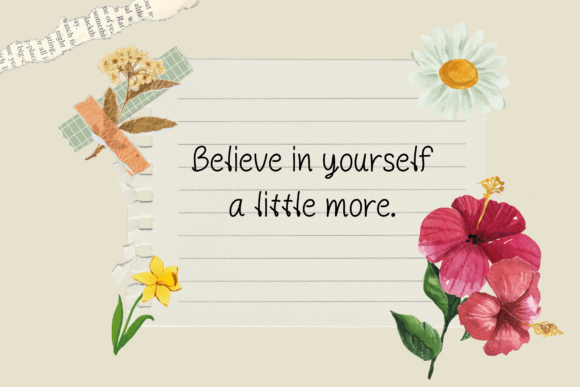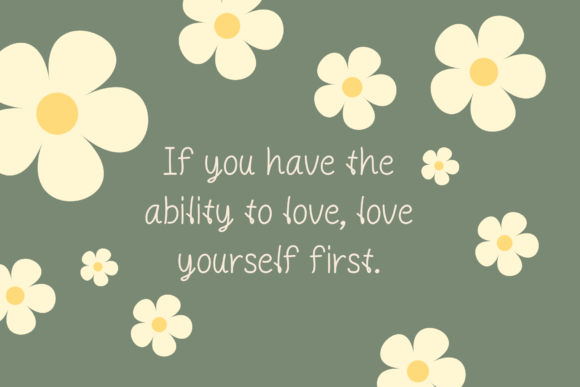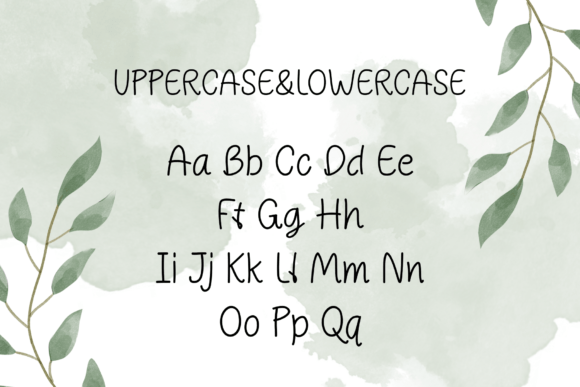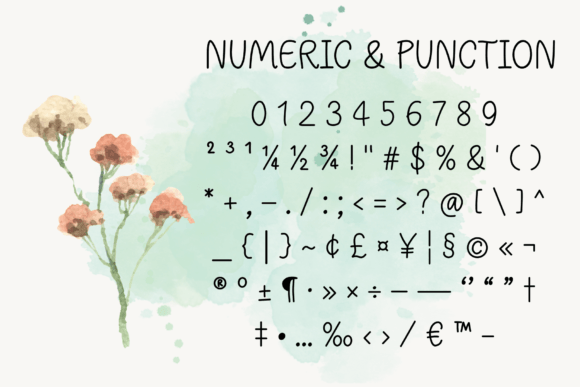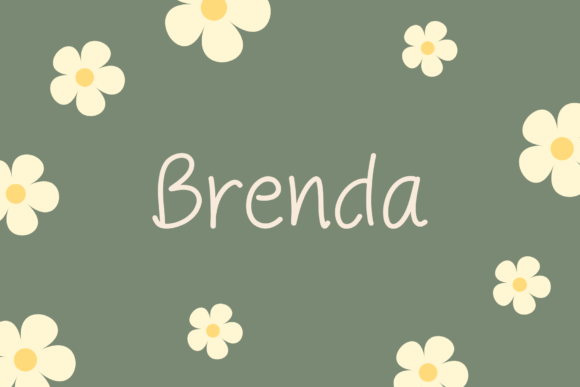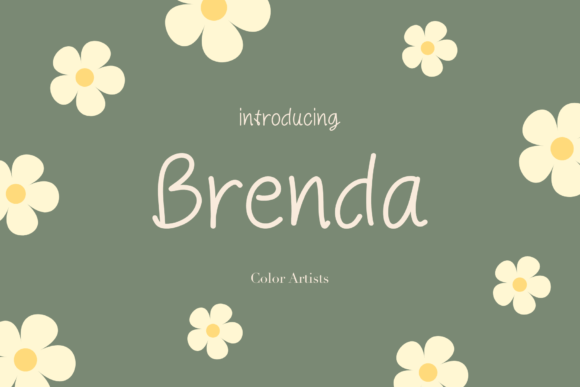
Introducing Brenda: The Elegant Script Font for Sophisticated Designs
In the world of typography, a well-chosen font can elevate a design project from ordinary to extraordinary. For designers and crafters seeking to add a touch of sophistication to their work, look no further than Brenda, the elegant script font that is taking the design community by storm. With its delicate and refined strokes, Brenda is the perfect choice for creating luxurious brand identities, romantic wedding invitations, and a wide range of other design projects that demand a sense of elegance and refinement.
The Characteristics of Brenda
Brenda’s design is characterized by its flowing lines, smooth curves, and graceful loops. Each letter is carefully crafted to create a sense of movement and fluidity, giving the font a sense of dynamism and energy. The delicate strokes and refined lines of Brenda’s letters are perfect for creating a sense of sophistication and luxury, making it an ideal choice for designers seeking to create high-end brand identities, wedding invitations, and other materials that demand a touch of elegance.
One of the key benefits of Brenda is its versatility. This elegant script font can be used in a wide range of design projects, from formal business materials to playful greeting cards. Whether you’re looking to create a luxurious brand identity, a romantic wedding invitation, or a stylish social media graphic, Brenda is the perfect choice. Its smooth curves and flowing lines make it easy to read and visually appealing, ensuring that your design project will stand out from the crowd.
Why Choose Brenda?
So why choose Brenda over other script fonts on the market? Here are just a few reasons why designers and crafters are falling in love with this elegant font:
- Elegance and refinement: Brenda’s delicate strokes and refined lines create a sense of sophistication and luxury that is hard to find in other script fonts.
- Versatility: Brenda can be used in a wide range of design projects, from formal business materials to playful greeting cards.
- Easy to read: Brenda’s smooth curves and flowing lines make it easy to read, even at small sizes.
- Visually appealing: Brenda’s elegant design makes it a joy to look at, and its flowing lines and graceful loops create a sense of movement and energy.
How to Use Brenda in Your Design Projects
Using Brenda in your design projects is easy. Here are a few tips to get you started:
- Pair Brenda with a sans-serif font: For a classic look, pair Brenda with a sans-serif font like Arial or Helvetica.
- Use Brenda for headings and titles: Brenda’s elegant design makes it perfect for headings and titles, where you want to make a statement.
- Experiment with different colors and textures: Brenda’s versatility means you can experiment with different colors and textures to create a unique look.
In conclusion, Brenda is a game-changing script font that is perfect for designers and crafters seeking to add a touch of sophistication to their work. With its delicate and refined strokes, flowing lines, and smooth curves, Brenda is the ideal choice for creating luxurious brand identities, romantic wedding invitations, and a wide range of other design projects that demand a sense of elegance and refinement. Try Brenda out today and take your design projects to new heights!